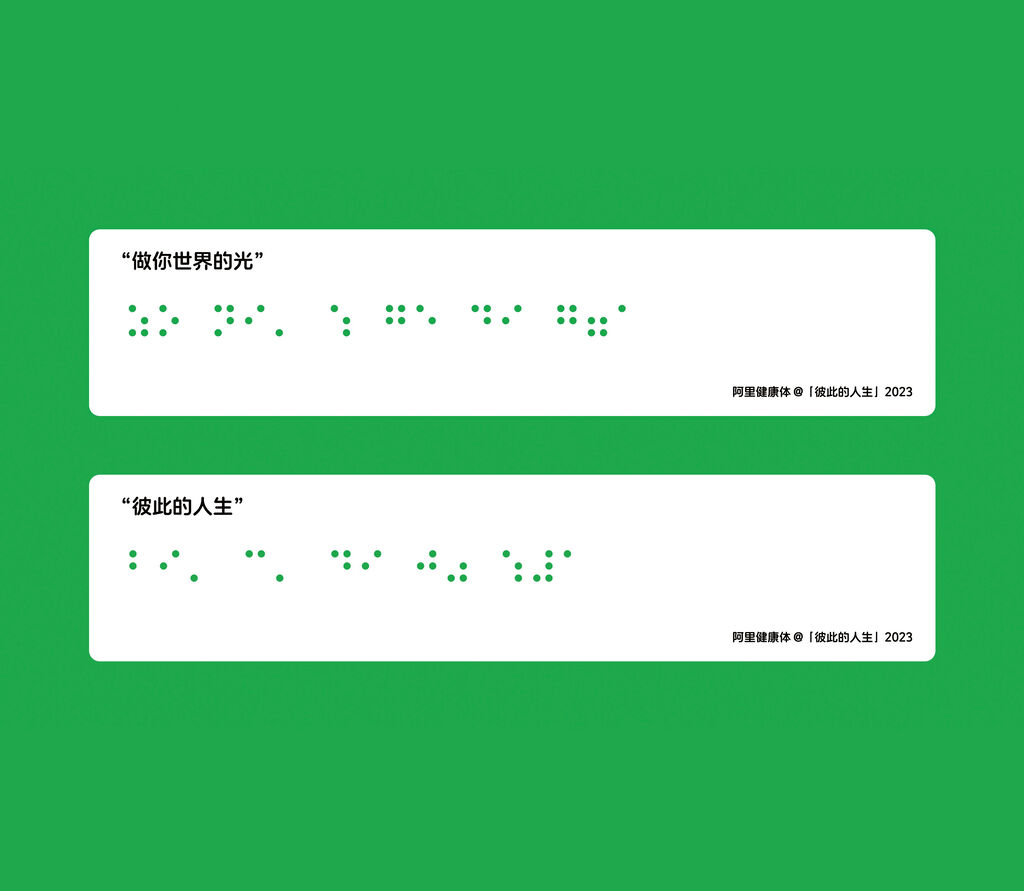
Alibaba Health Font
Numerous medicines on the Chinese market do not have Braille on their packaging. Alibaba Health Design has come up with a solution for this problem. Thanks to the Alibaba Health Font, people with visual impairments can have information about their medicines easily communicated to them.